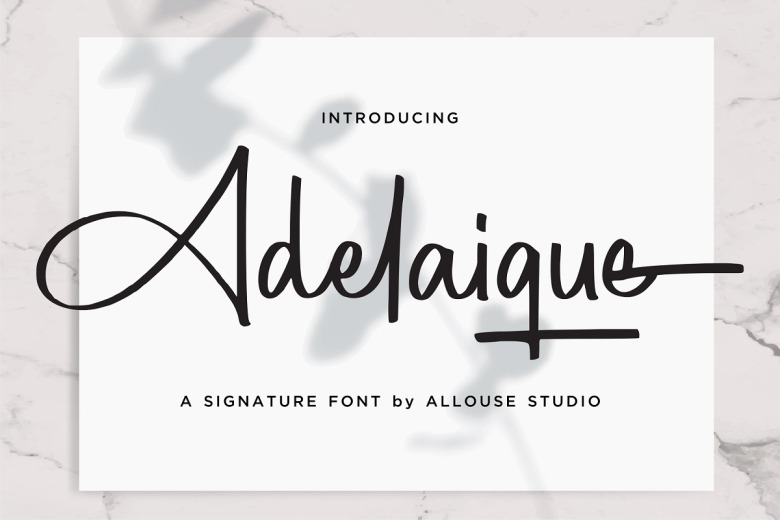
Adelaique Font
Adelaique is a script font rising with beauty, adding Channel curls, swashes and extra lines at the beginning feels this written signature style will get very stylish! In every single word, the balance! This is the place where I think this will shine when it comes to hello/greeting cards, magazines and headlines, social media posts etc.
Adelaique Signature Script Font